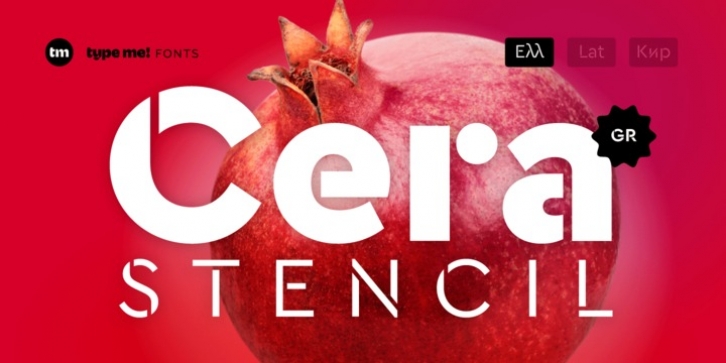
The sans-serif typeface – designed between 2013 and 2015 – is supporting pure geometry plus Greek script and basic Latin letters. With over 440 glyphs per weight Cera Stencil GR cares about all monotonic letter shapes plus ordinals and provides matching OpenType Features.
Equipped with six precise weights and useful dingbats plus arrows, Cera Stencil GR is a good companion for setting clean but interesting headlines for print and screen in modern Greek Script and all its facets.